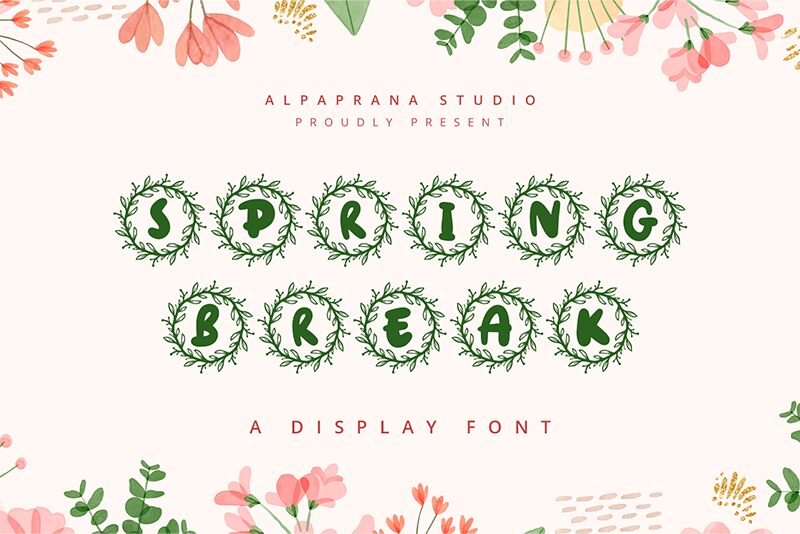
Spring Break
Spring Break font by Alpaprana Studio is a bold decorative display font with a retro-inspired style. Its ornamental and whimsical vibe gives it a unique flair that stands out in any design. This free display font offers a distinctive look, making it perfect for eye-catching designs.
Use Spring Break for posters, book covers, magazine covers, packaging labels, branding projects, logotypes, business/ID cards, flyers, and social media posts. The font looks adventurous in large sizes mostly where its details can be appreciated.